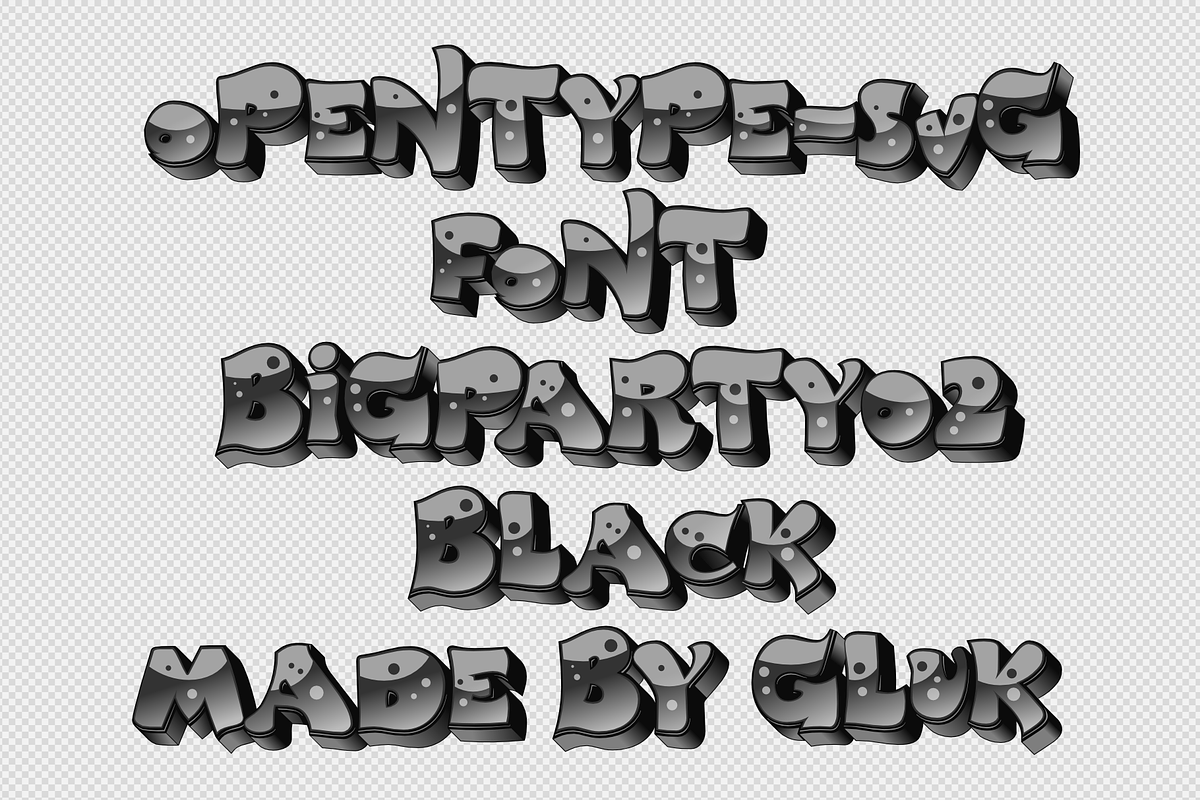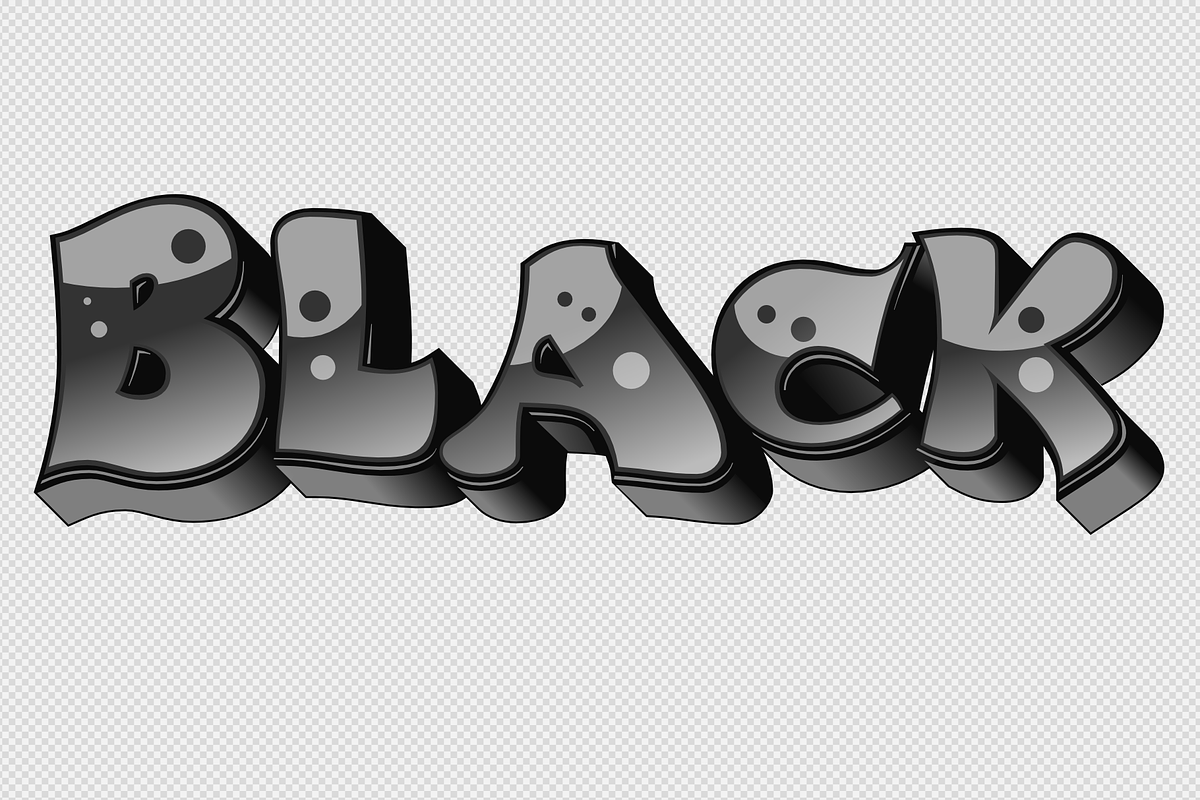
BigPartyO2-Black SVG font
Why BigPartyO2-Black SVG font is worth a look
BigPartyO2-Black SVG font by glukfonts fits naturally into Branding, posters, packaging, typography.